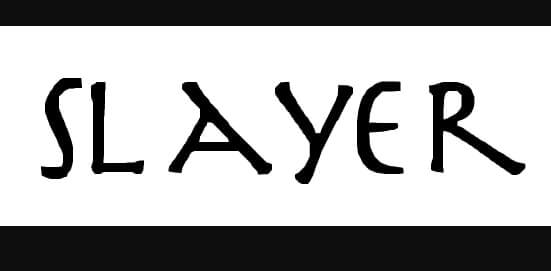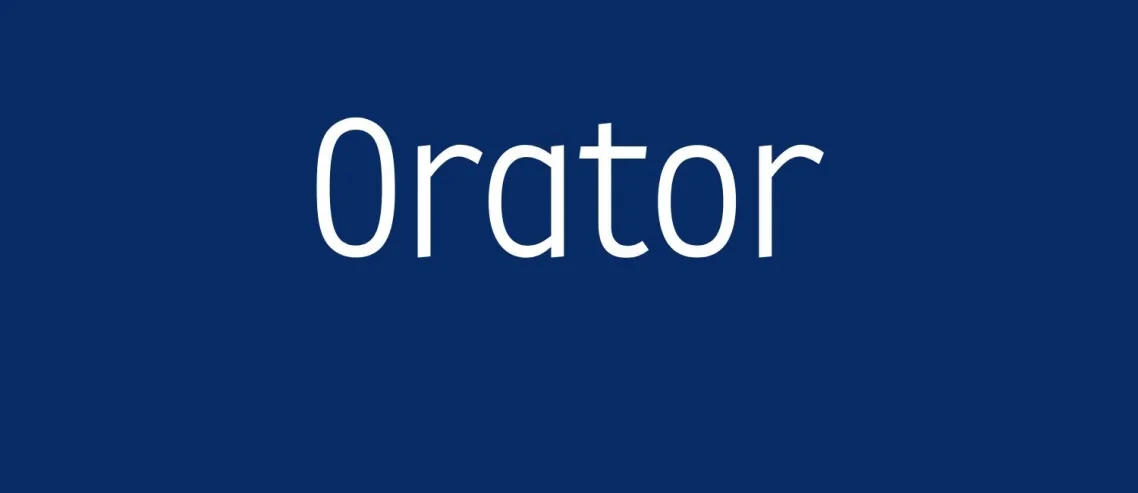
Rolling Stone Font Free Download
Rolling Stone Font is a distinctive and captivating font that was exclusively made for Rolling Stone magazine. This font is inspired by the magazine’s original logo, crafted by Art Chantry. Used by the magazine for more than 50 years, this font remains a favorite among their readers. If you are looking for a unique and …
Orator Font Free Download
Orator is a font created specifically for coding and technical documents, prioritizing readability and clarity. Its uniform character width guarantees consistent alignment and easier code reading. Orator’s purpose is to provide a clear and legible typeface for programming, software development, and other contexts where precise text alignment is crucial. It ensures that code and technical …
Sleepy Fat Cat Font
The Sleepy Fat Cat Font is a one-of-a-kind collection of quirky characters that many designers have been incorporating into their own designs. It’s miles much like bungee font family and their adorable font. These fonts are best for branding tasks for producers that want to stand out and be perceived as genuine and bold. Style …
Slayer Regular Font
The Slayer Regular Font is a great choice for logos that have a geometric vibe. It is available in 4 unique styles, including regular, bold, and semi-bold. A font fashion designer came up with this design font within the 1800s, and the font has a prestigious record. It turned into designed in 1990 as a sans …
Every Summer Font
A well-known font designer developed the Every Summer font as a top-notch brand font option. It is suitable for use in various aspects of graphic design and is commonly seen on t-shirts, badges, and print designs. The font is fun, modern and comes with 350 glyphs as well as 150 alternate characters. The stylish fonts appearance …
Biker Font
The Biker Font was created with a futuristic design and quickly adopted by Intel for its rebranding campaign. This unique font family was crafted by a font designer in 2007. Similarly, The Headline Font circle of relatives is a re-invention of the Biker font which changed into created in the 1990s. Style Of The Biker Font …